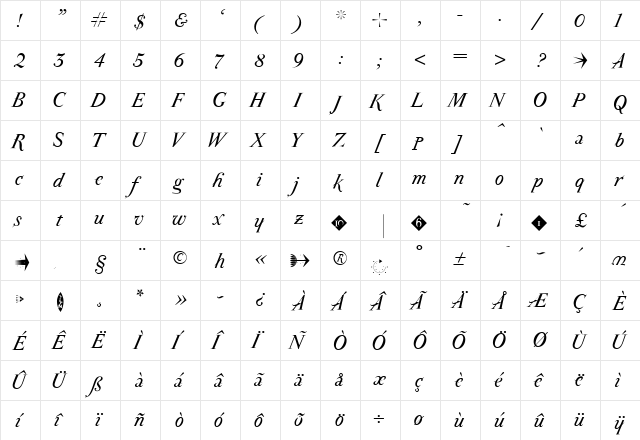
AIParmaPetit Italic
Design Context for AIParmaPetit Typeface
AIParmaPetit takes a measured approach to typography — its balanced proportions and neutral character make it a reliable workhorse for both digital and print work. Its italic angle brings a sense of urgency and motion to the letterforms.
Pro Tip: Use AIParmaPetit for emphasis, pull quotes, and subheadings where its slanted energy can add rhythm to the layout.